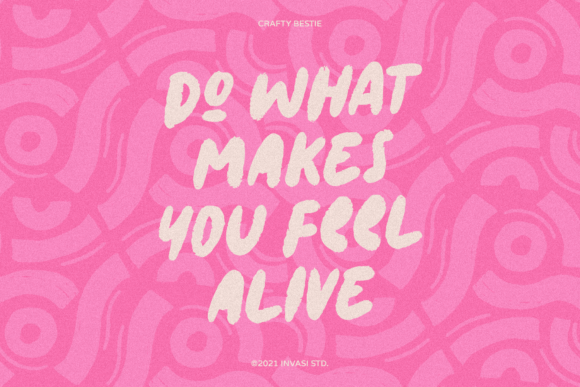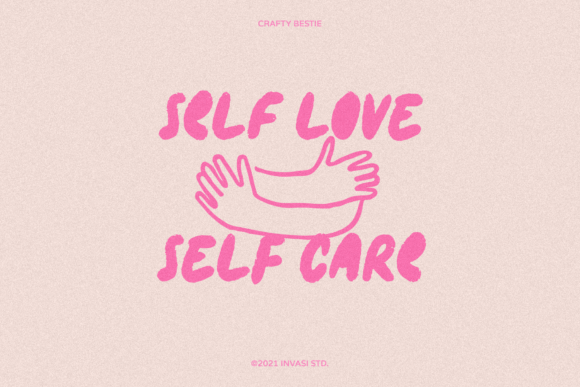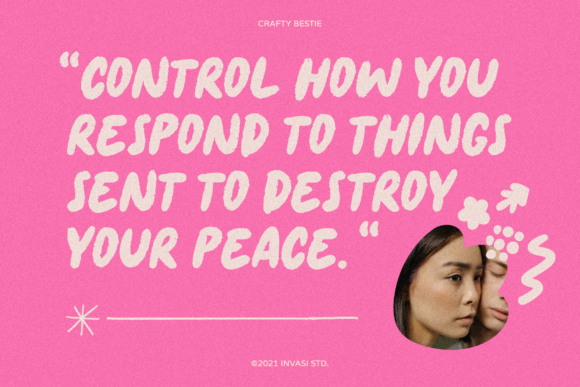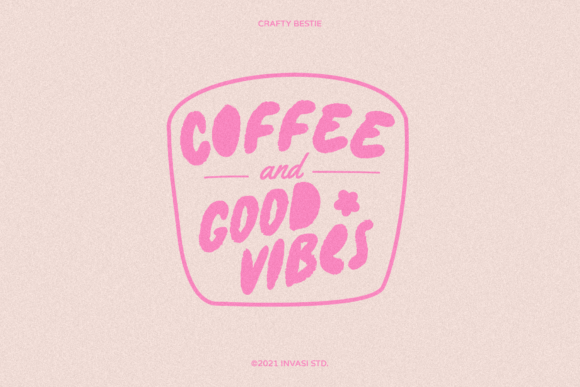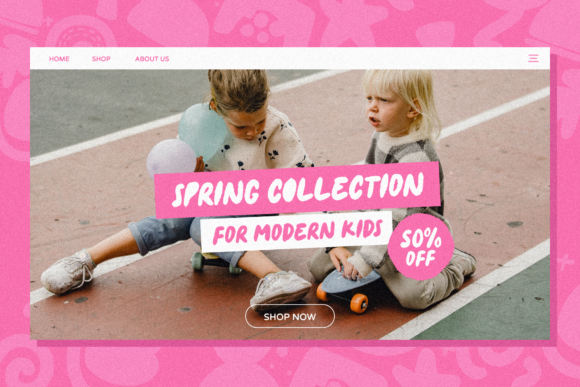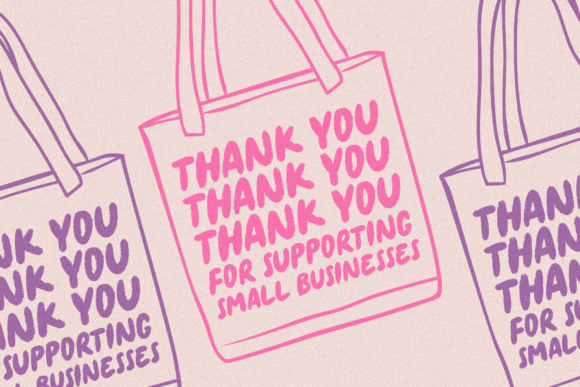
Crafty Bestie Font: The Ultimate Display Font for Friendly Designs
Are you tired of using the same old fonts for your craft projects, digital designs, and presentations? Look no further! Introducing Crafty Bestie, a childish and easy-to-read display font that’s perfect for conveying impeccable friendliness. In this article, we’ll dive into the world of Crafty Bestie and explore its features, benefits, and uses.
What is Crafty Bestie Font?
Crafty Bestie is a display font designed to bring a touch of friendliness and approachability to your designs. Its childish and playful style makes it perfect for crafts, digital design, presentations, and even making greeting cards. With Crafty Bestie, you can add a personal touch to your projects and make them stand out from the crowd.
Key Features of Crafty Bestie Font
- Childish and playful style: Crafty Bestie has a unique and youthful style that’s perfect for designs that require a friendly touch.
- Easy-to-read: Despite its playful style, Crafty Bestie is incredibly easy to read, making it perfect for digital designs, presentations, and even body text.
- Display font: Crafty Bestie is designed to make a statement, making it perfect for headings, titles, and other display text.
- Versatile: Whether you’re working on a craft project, digital design, or presentation, Crafty Bestie can be used in a variety of contexts.
Benefits of Using Crafty Bestie Font
So, why should you choose Crafty Bestie for your next project? Here are just a few benefits of using this amazing font:
- Adds a personal touch: Crafty Bestie brings a level of friendliness and approachability to your designs that’s hard to achieve with other fonts.
- Perfect for crafts and DIY projects: If you’re working on a craft project or DIY design, Crafty Bestie is the perfect font to add a personal touch.
- Great for digital designs and presentations: Crafty Bestie is also perfect for digital designs, presentations, and even body text.
- Easy to pair with other fonts: Crafty Bestie can be paired with a variety of other fonts to create a unique and cohesive look.
Uses of Crafty Bestie Font
Crafty Bestie is an incredibly versatile font that can be used in a variety of contexts. Here are just a few ideas to get you started:
- Craft projects: Use Crafty Bestie to add a personal touch to your craft projects, such as scrapbooking, card making, and other paper crafts.
- Digital designs: Crafty Bestie is perfect for digital designs, such as social media graphics, blog posts, and email newsletters.
- Presentations: Add a touch of friendliness to your presentations with Crafty Bestie.
- Greeting cards: Use Crafty Bestie to create personalized and friendly greeting cards for any occasion.
Tips for Using Crafty Bestie Font
Here are a few tips for getting the most out of Crafty Bestie:
- Use it as a display font: Crafty Bestie is designed to make a statement, so use it as a display font for headings and titles.
- Pair it with other fonts: Experiment with pairing Crafty Bestie with other fonts to create a unique and cohesive look.
- Experiment with colors: Crafty Bestie looks great in a variety of colors, so don’t be afraid to experiment and find the perfect hue for your design.
In conclusion, Crafty Bestie is a childish and easy-to-read display font that’s perfect for conveying impeccable friendliness. With its versatile style and wide range of uses, Crafty Bestie has the potential to become your go-to font for all your design needs. Whether you’re working on a craft project, digital design, or presentation, Crafty Bestie is the perfect choice. So why not give it a try and see the difference it can make in your designs?